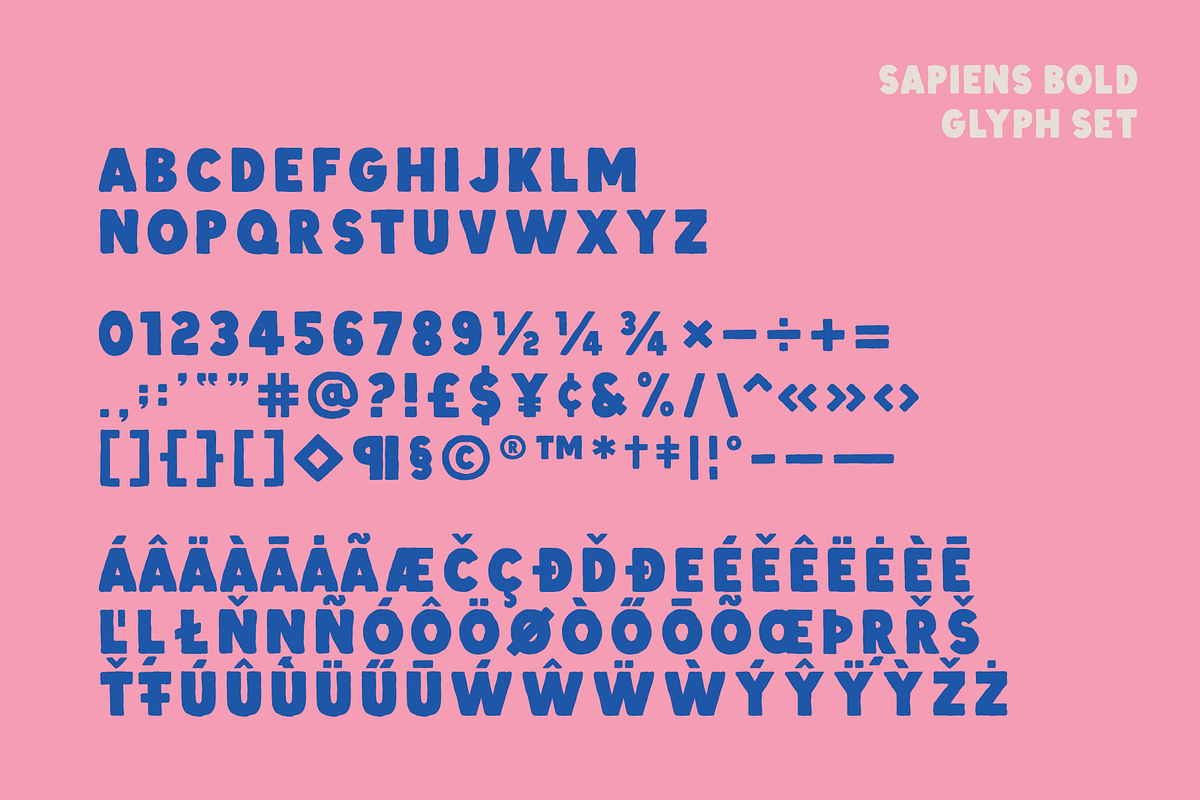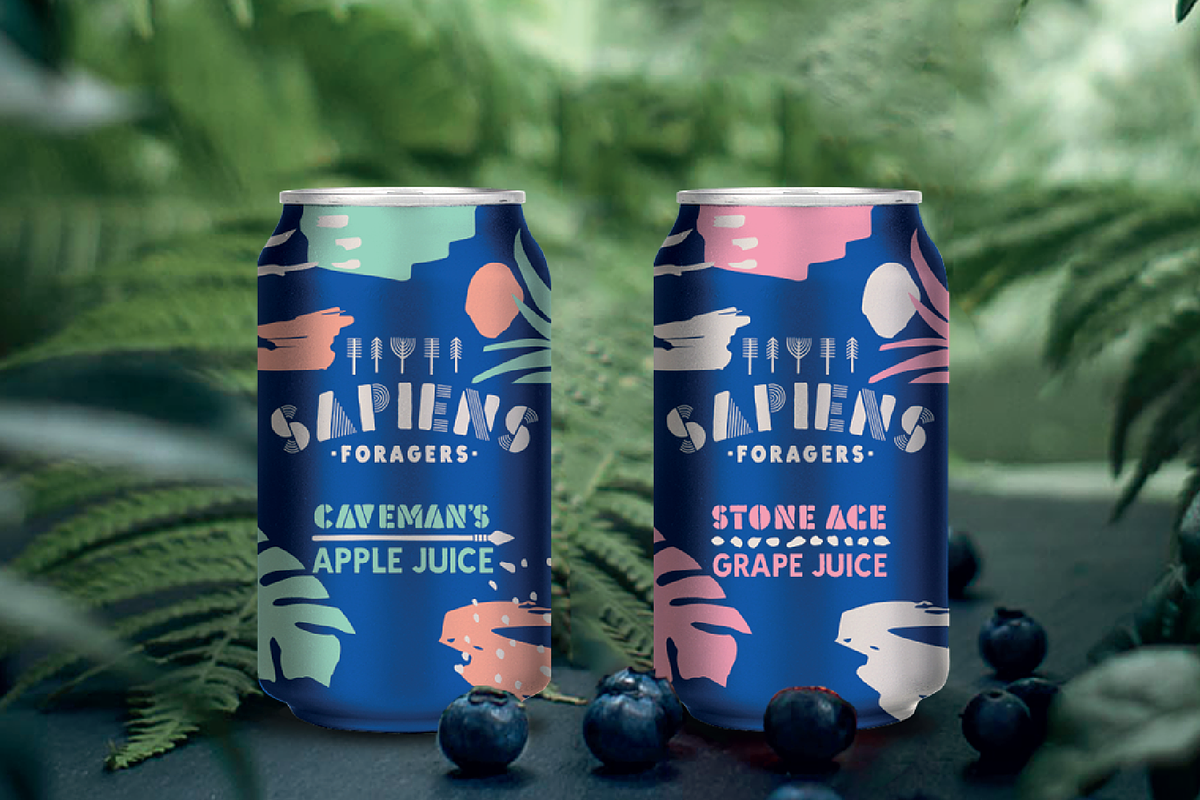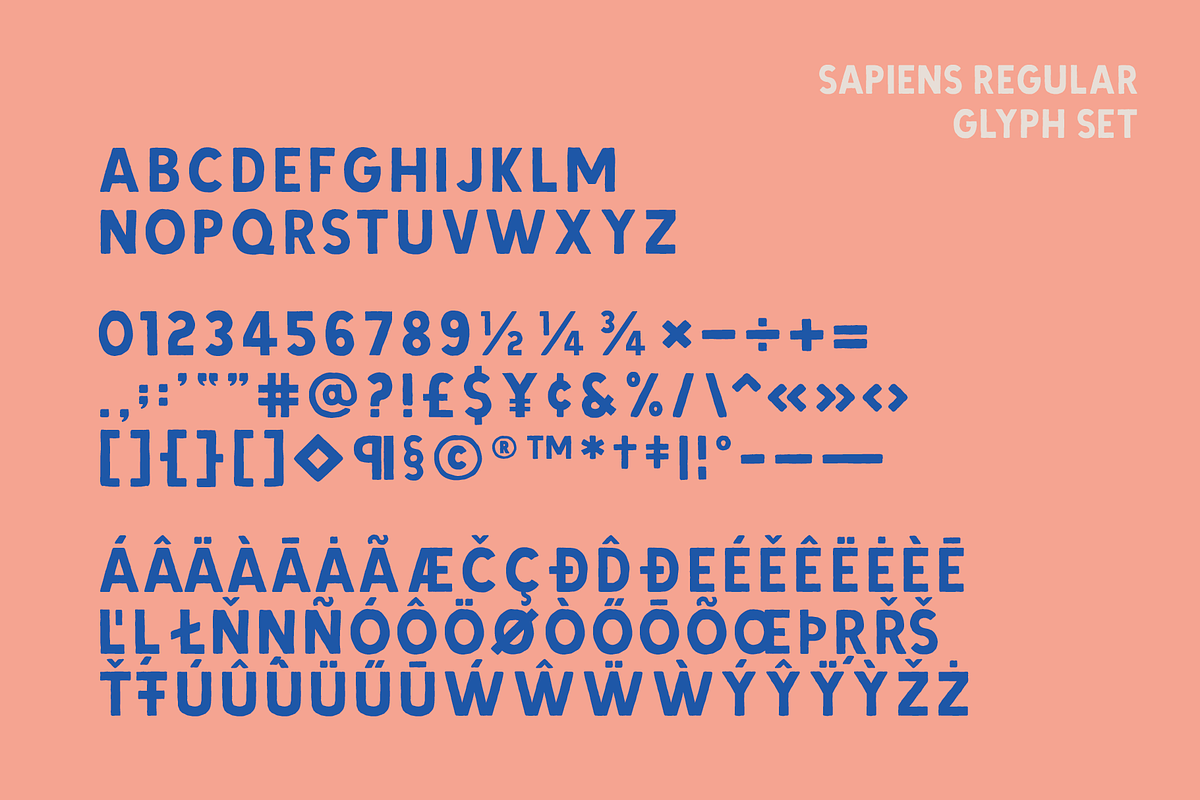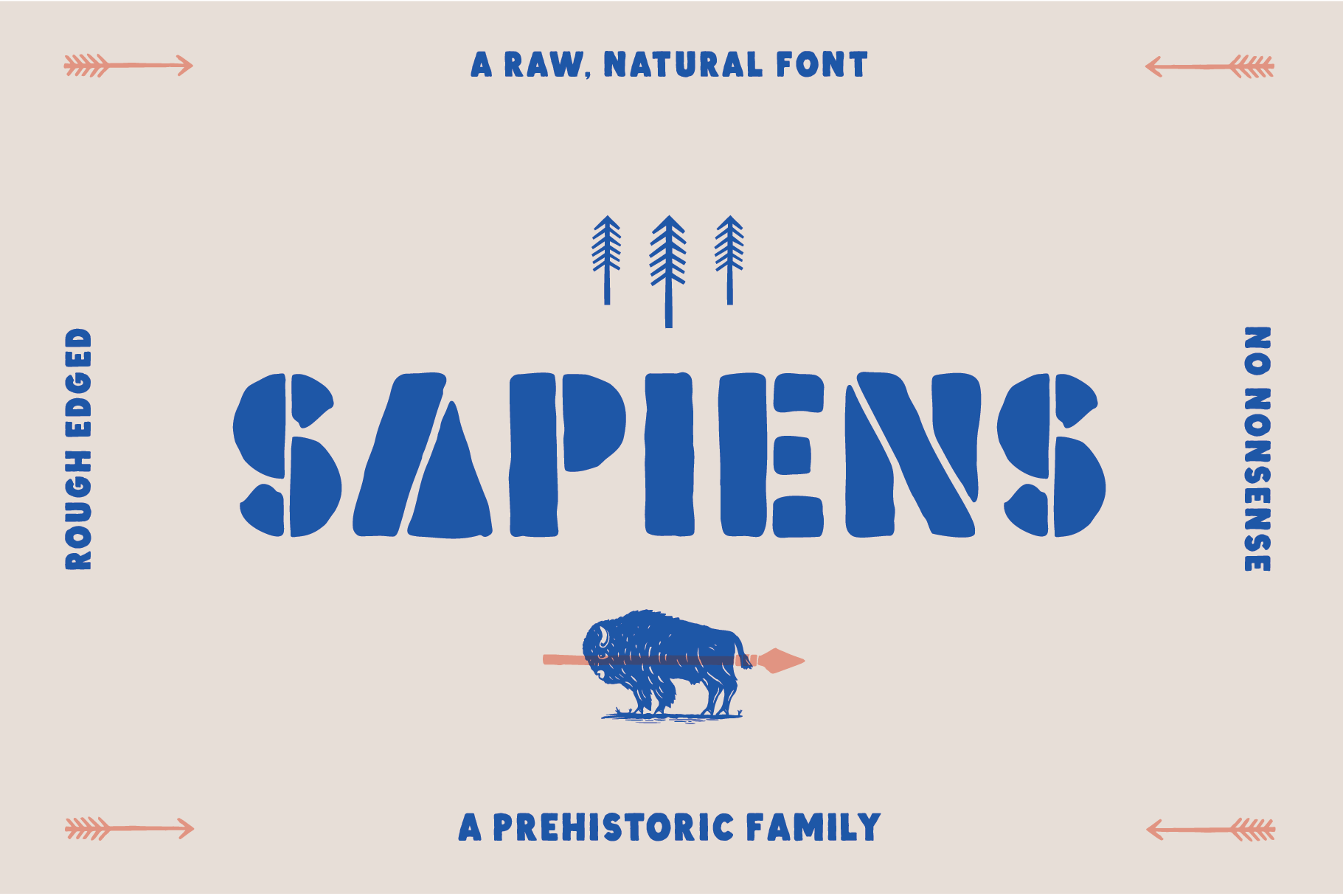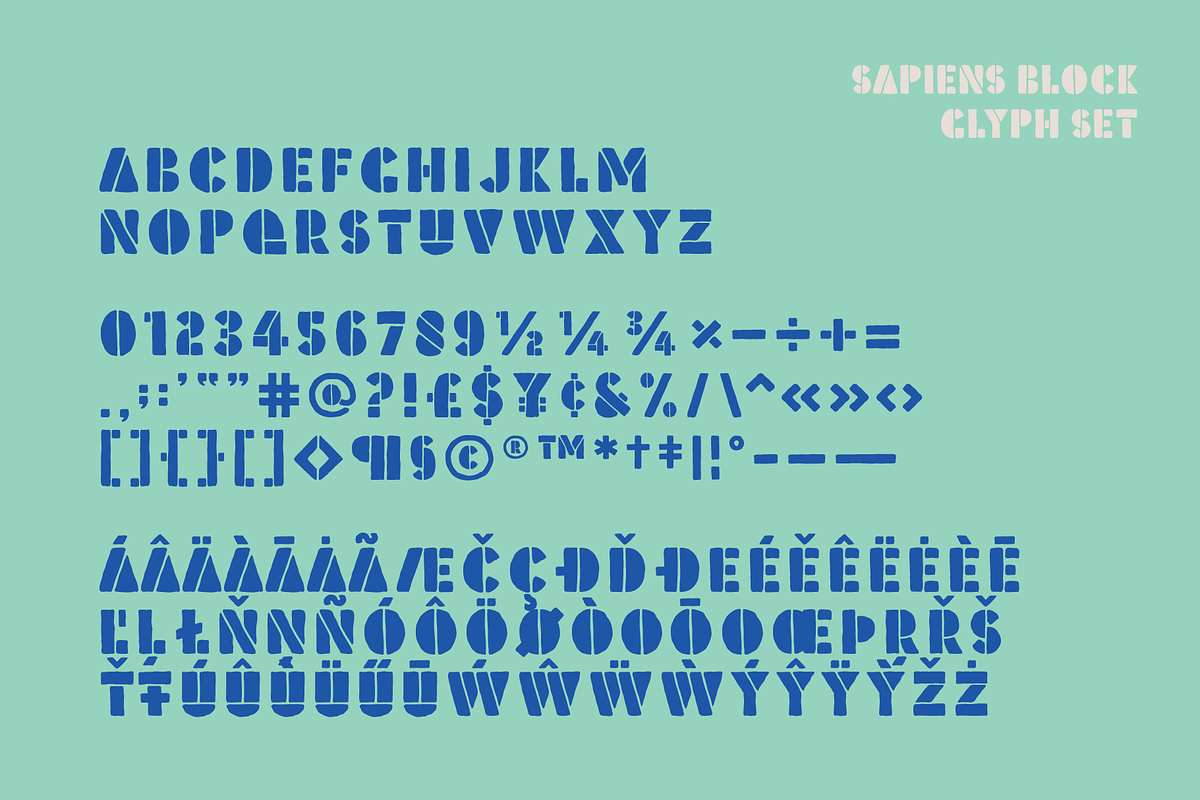
Sapiens Font Family
Sapiens is a prehistoric font family characterised by simplicity & crudeness, as if carved out and assembled by our sapiens ancestors. The family is built with a rough edged style that evolves through various styles and becomes more legible while retaining the raw roots of its origins.
Sapiens includes 5 styles that are designed to work together but also stand well alone. This font family is ideal for headline typography and branding.